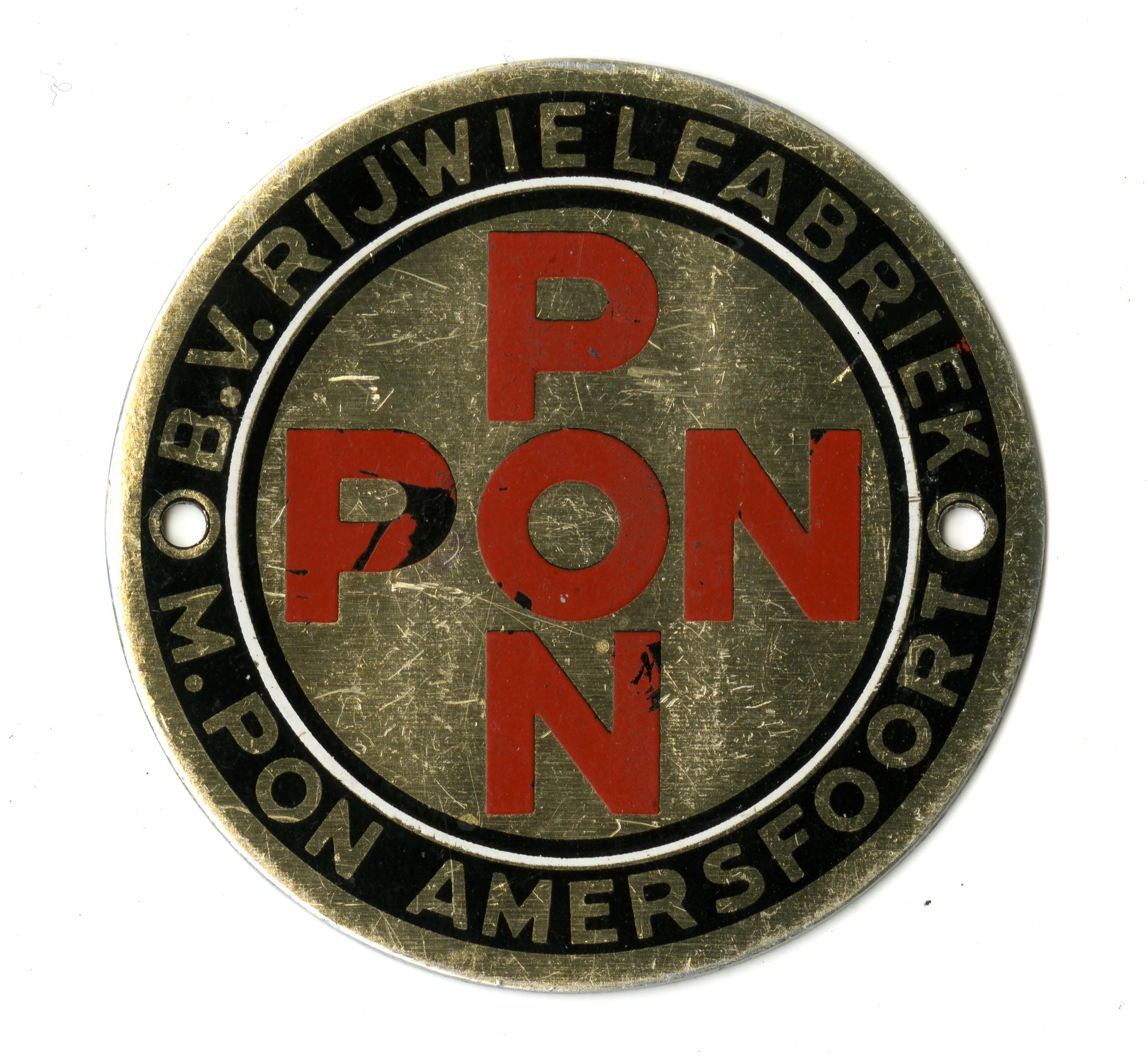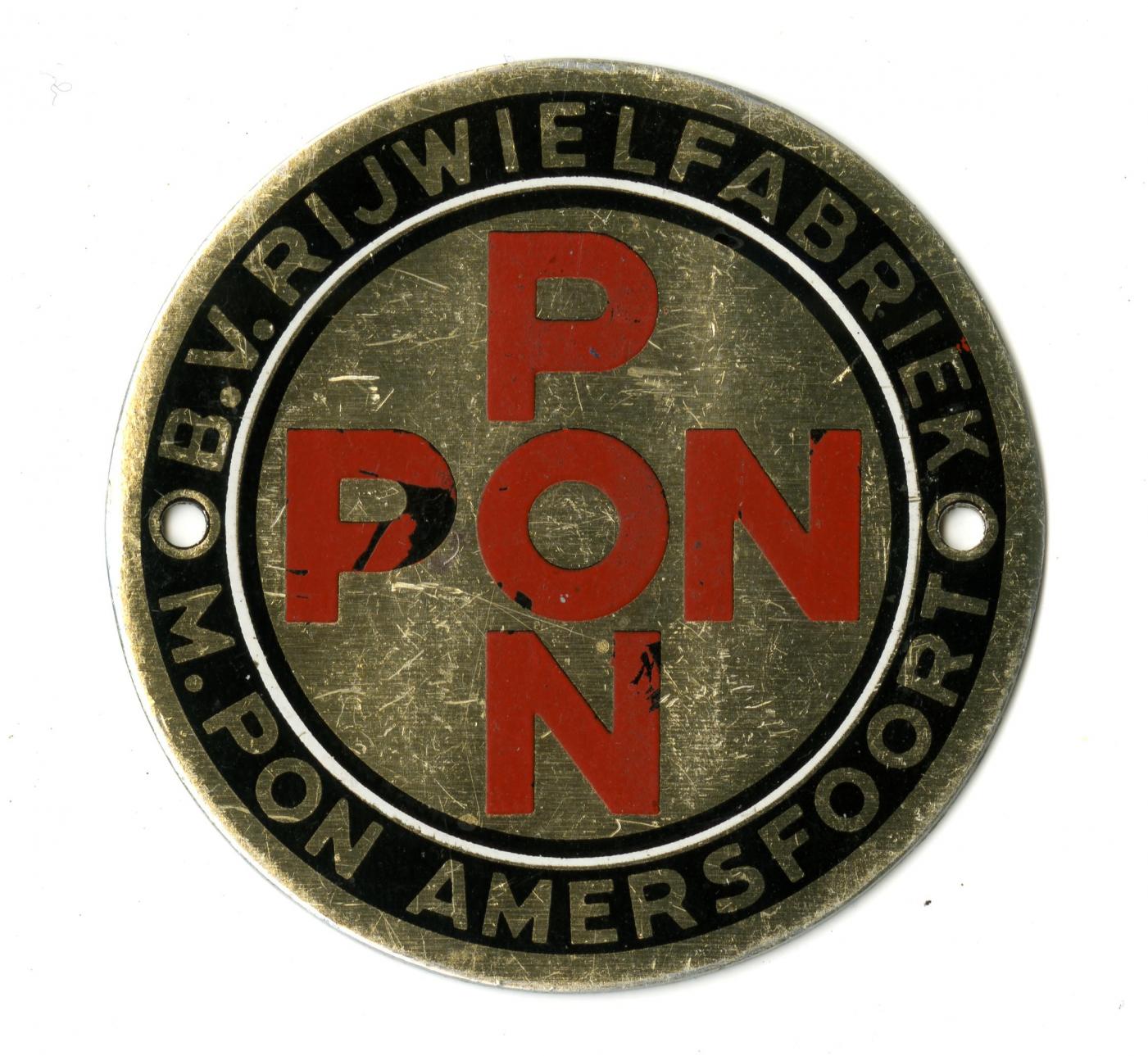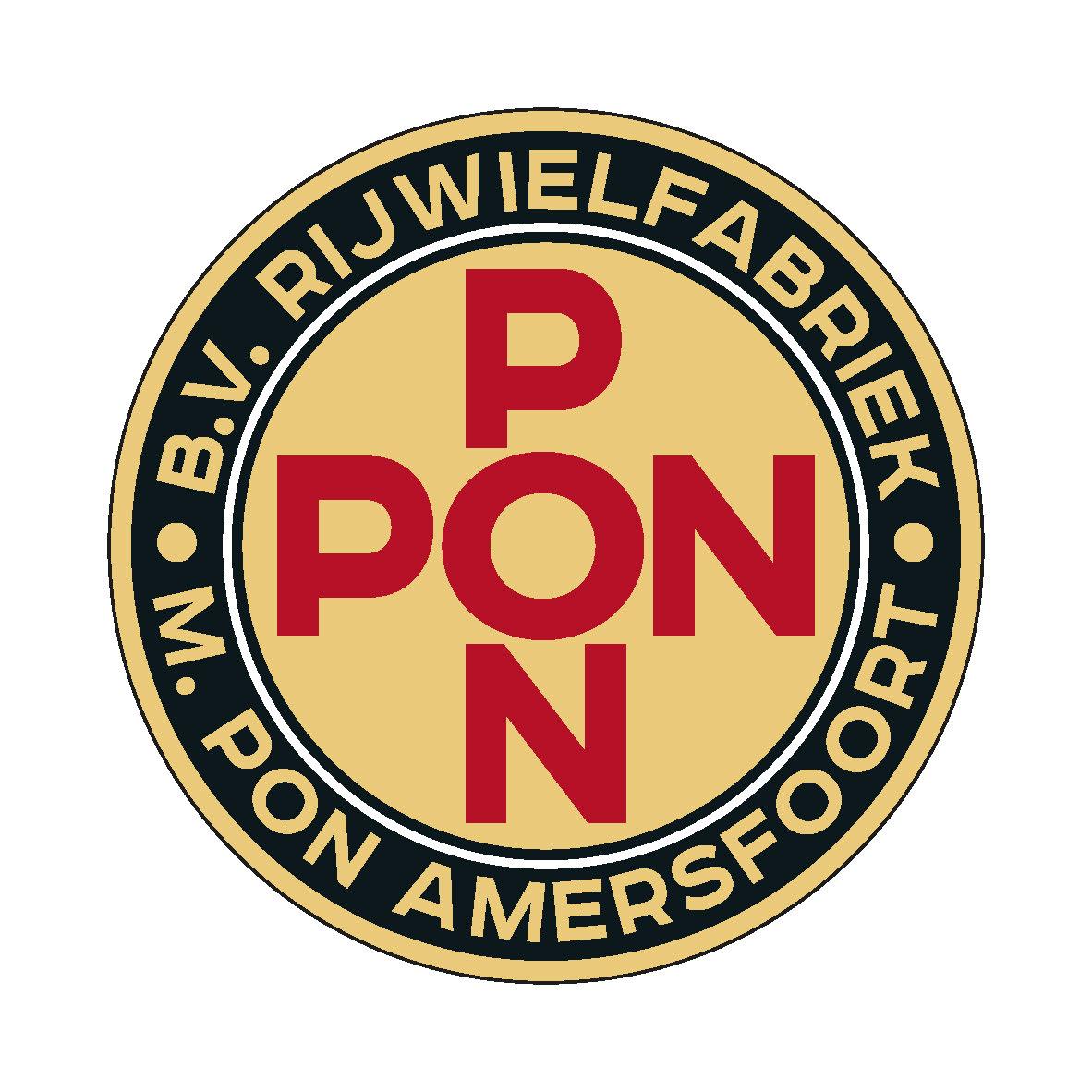
Bicycle brand shield
Anyone have a suggestion what font this might be? It dates from very pre-digitized times... Any suggestion would be welcome.
Looks handcrafted to me … differing Ms, Rs etc.
These hand-drawn staightforward letterings were so beautiful ... unfortunately, none of this list quite matches their craftsmanship. However, I hope you can draw some inspiration from it.